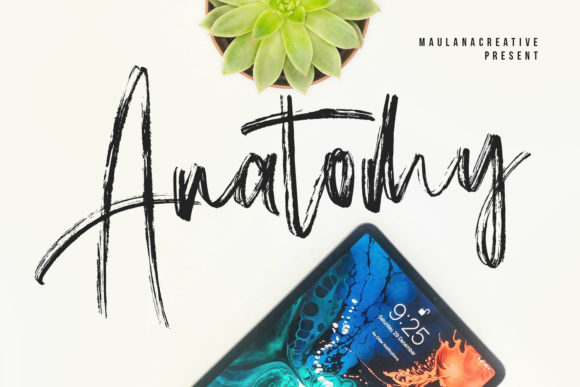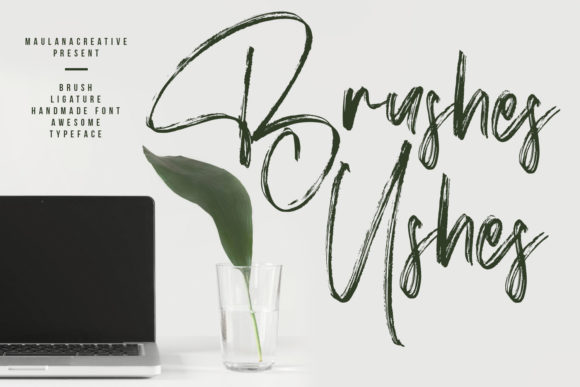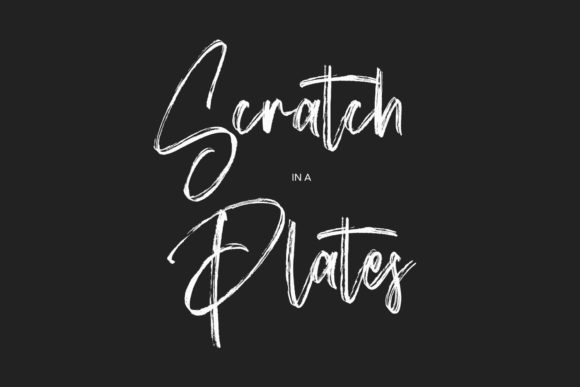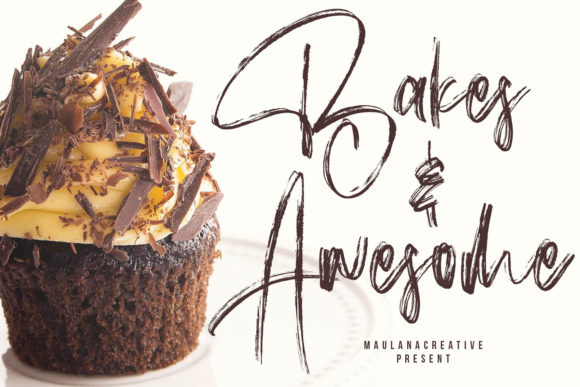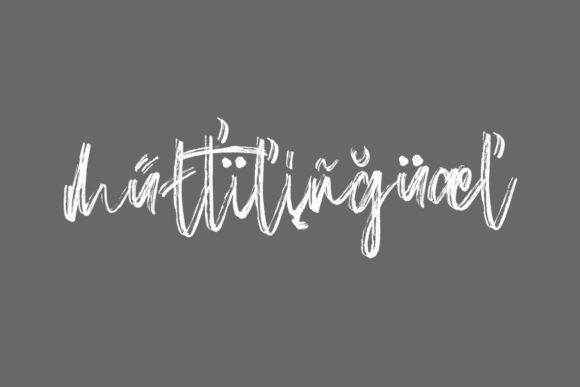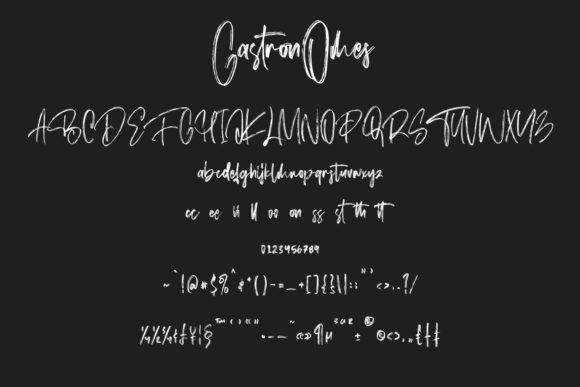
Gastronomes Font: Add a Rustic Touch to Your Designs
Are you looking for a font that can add a casual and rustic touch to your designs? Look no further than Gastronomes Font. This hand-brushed font is perfect for designers and crafters who want to give their projects a unique and personalized feel. In this article, we’ll explore the features of Gastronomes Font and how it can be used in various design applications.
What is Gastronomes Font?
Gastronomes Font is a hand-brushed font that features a rustic style. It’s designed to give your designs a casual and laid-back feel, making it perfect for projects that require a personal touch. The font is carefully crafted to resemble handwriting, with each letter and character uniquely designed to create a distinctive look.
Key Features of Gastronomes Font
- Hand-brushed design: Gastronomes Font is carefully hand-brushed to give it a unique and rustic feel.
- Rustic style: The font features a rustic style that’s perfect for adding a casual touch to your designs.
- Perfect for casual designs: Gastronomes Font is ideal for designs that require a personal and laid-back feel.
- Multipurpose: The font can be used in various design applications, from signature and stationery to logo and branding.
Uses of Gastronomes Font
Gastronomes Font is a versatile font that can be used in various design applications. Here are some of the ways you can use this font:
- Signature: Use Gastronomes Font to create a unique and personalized signature.
- Stationery: Add a rustic touch to your stationery, such as letters, cards, and invitations.
- Logo: Use Gastronomes Font to create a logo that’s casual and laid-back.
- Typography quotes: Create inspiring typography quotes that feature a rustic feel.
- Magazine or book cover: Use Gastronomes Font to create a unique and eye-catching cover for your magazine or book.
- Website header: Add a rustic touch to your website header with Gastronomes Font.
- Flyer: Create a flyer that’s casual and laid-back with Gastronomes Font.
- Clothing: Use Gastronomes Font to create custom clothing, such as t-shirts and hoodies.
- Branding: Use Gastronomes Font to create a brand identity that’s unique and personalized.
- Packaging design: Add a rustic touch to your packaging design with Gastronomes Font.
Why Choose Gastronomes Font?
There are many fonts available that offer a rustic and casual feel, but Gastronomes Font stands out from the rest. Here are some reasons why you should choose Gastronomes Font:
- Unique design: Gastronomes Font features a unique hand-brushed design that’s unlike any other font.
- Multipurpose: Gastronomes Font can be used in various design applications, making it a great value for designers and crafters.
- Rustic feel: The font features a rustic feel that’s perfect for adding a casual touch to your designs.
Gastronomes Font is a unique and versatile font that’s perfect for designers and crafters who want to add a rustic touch to their designs. With its hand-brushed design and rustic style, Gastronomes Font is ideal for a wide range of design applications, from signature and stationery to logo and branding. Whether you’re looking to create a casual and laid-back design or want to add a personal touch to your projects, Gastronomes Font is a great choice.